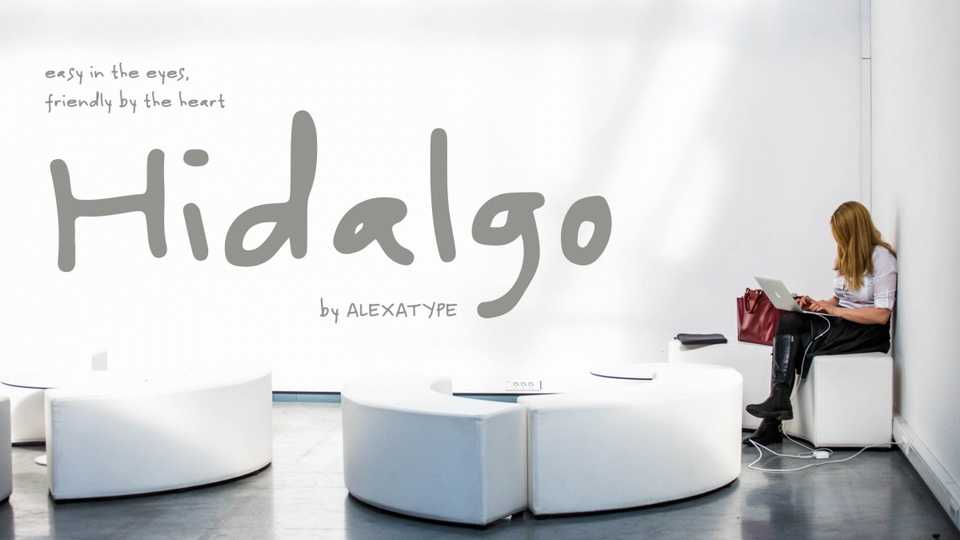
Download Hidalgo font, a handwritten typeface that easy in the eyes, and friendly by the heart. Hidalgo bring so much calmness in its irregular lines.
Designer: Alexatype